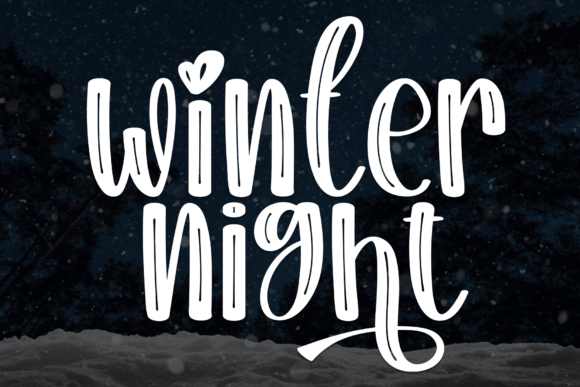
Introducing Winter Night Font, a script font designed by andikastudio. Are you ready to elevate your design game? Our font collection is not only visually stunning but also packed with special creative products that will give you an extraordinary experience.
With Winter Night Font, you'll have the power to transform any project into a work of art. Whether you're designing a wall display, creating wedding invitations, or crafting social media post logos, this font is your secret weapon. Its elegant and stylish letters will captivate your audience and leave a lasting impression.
But that's not all! Winter Night Font is incredibly versatile. It's perfect for advertisements, product packaging, labels, photography, watermarks, invitations, stationery, and any project that requires tasteful handwriting. The possibilities are endless!